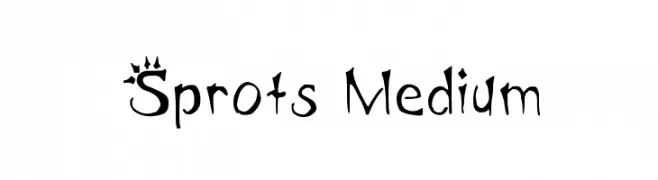
A playful, handwritten font with smooth, rounded edges and a friendly appearance.
A playful, rounded font with a whimsical and creative style.
A playful, handwritten font with smooth, rounded edges and a casual style.
A whimsical, hand-drawn font with irregular shapes and playful strokes.